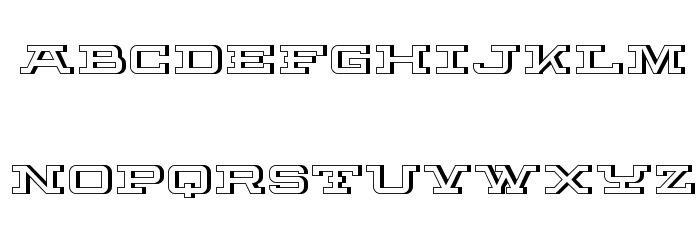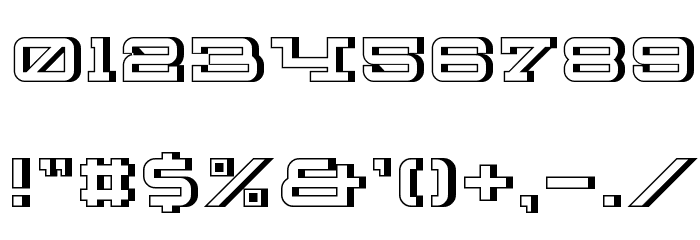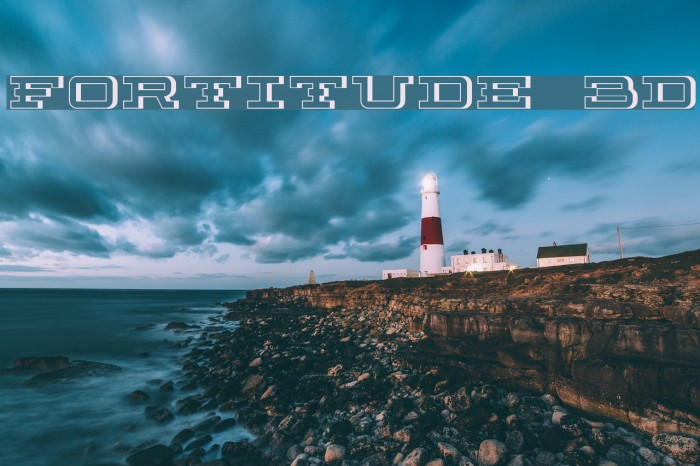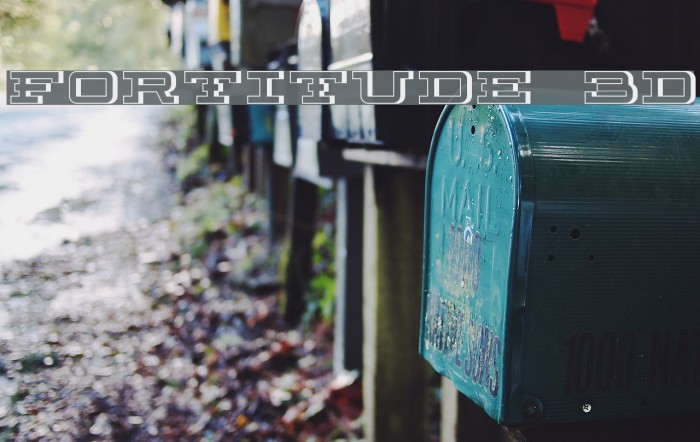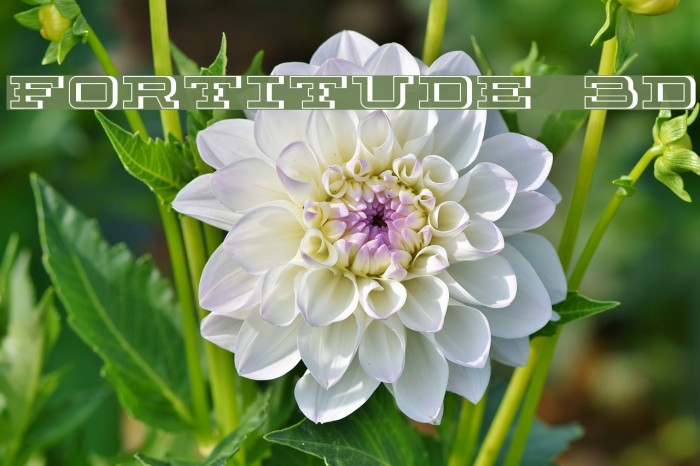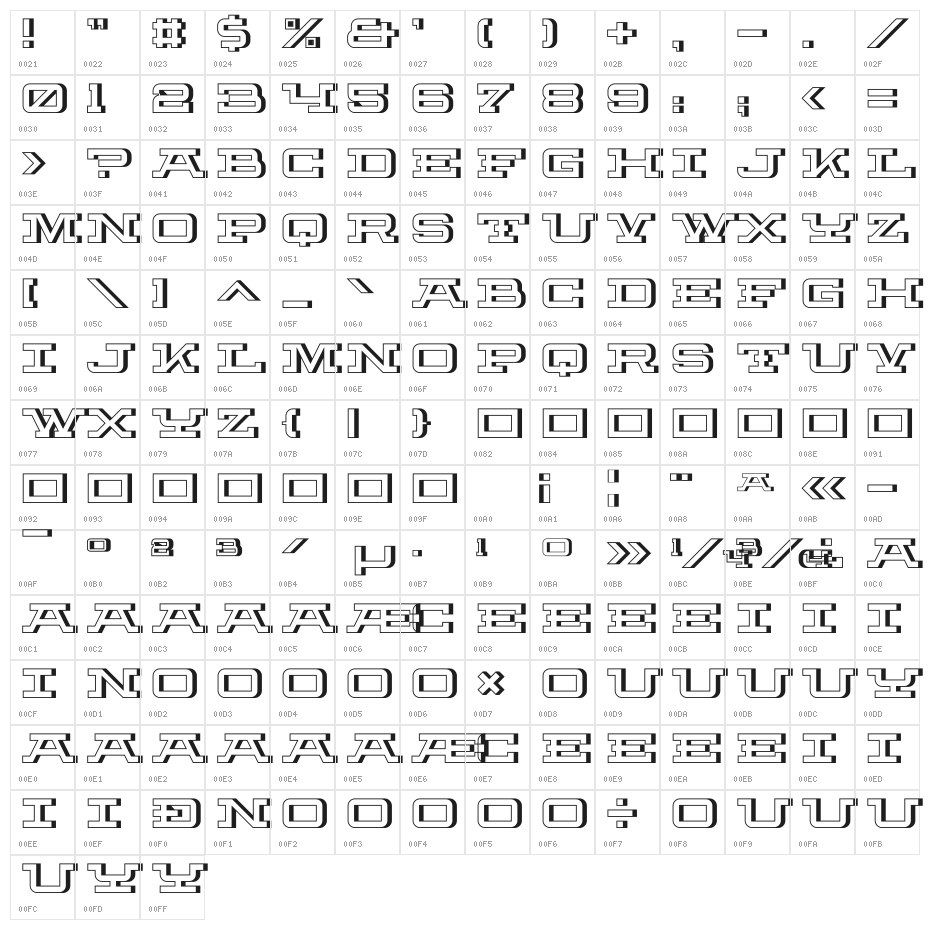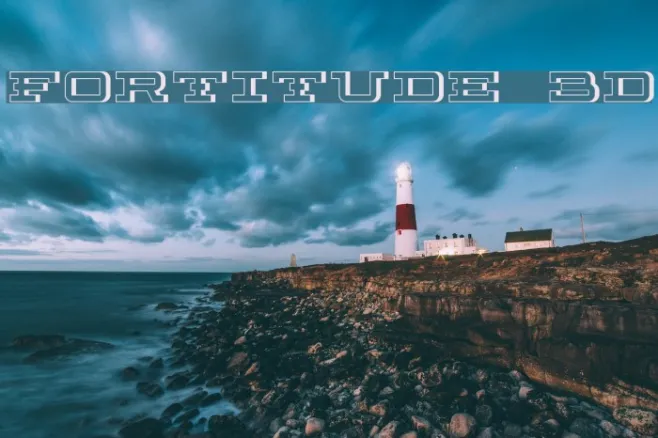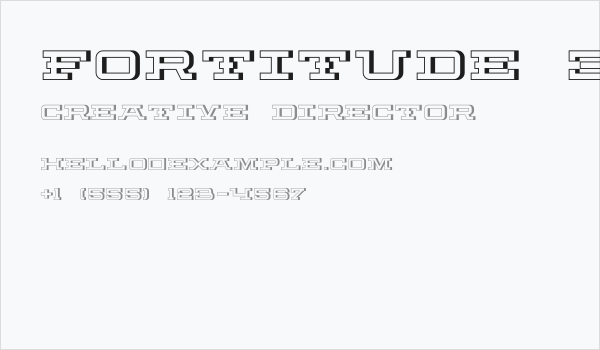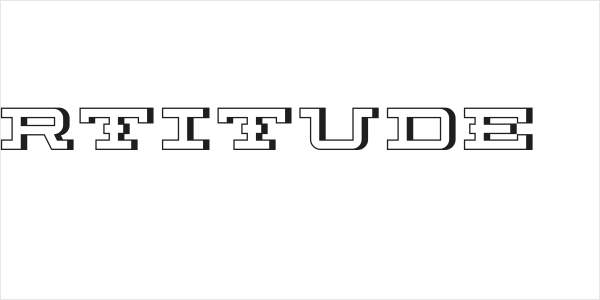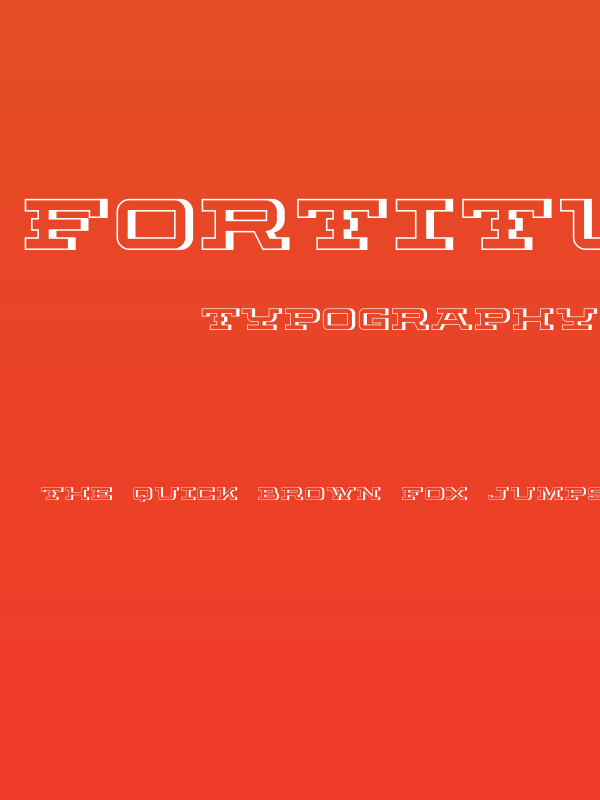
Fortitude 3D Font
This font features a bold, three-dimensional design with a strong, geometric structure. Each character is outlined with a thick border, creating a shadow effect that gives the font its distinctive 3D appearance. The uppercase and lowercase letters maintain a consistent style, with sharp angles and clean lines that enhance its modern aesthetic. The numerals and special characters are equally bold, ensuring uniformity across all glyphs. This font's unique style makes it stand out, perfect for projects that require a strong visual impact.
A bold, 3D geometric font with a strong, modern aesthetic.
- Proposed Projects: Ideal for headlines, posters, logos, and any design project that requires a striking, modern look.